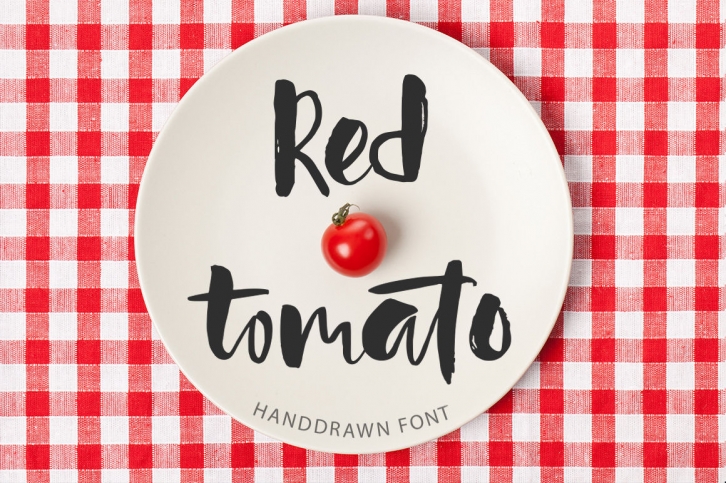
Introducing Red tomato!
Red tomato is a playful handdrawn script font created with brush and ink. It has dancing baseline and beautiful handdrawn texture. It’s playful and juicy as summer homegrown tomatoes)))
Red tomato font has full set of lowercase and uppercase alternates and lot of ligatures - so you can imitate lettering.
Goodlooking and creative, it was created for beautiful typographic projects, amazing designs, like greeting cards, t-shirts, posters, mugs, branding materials, photography overlays and so much more!